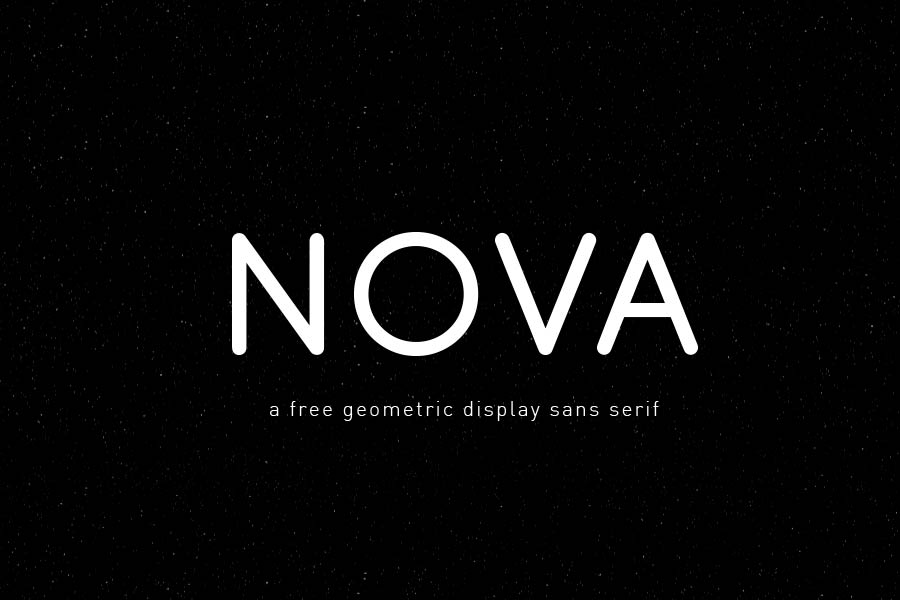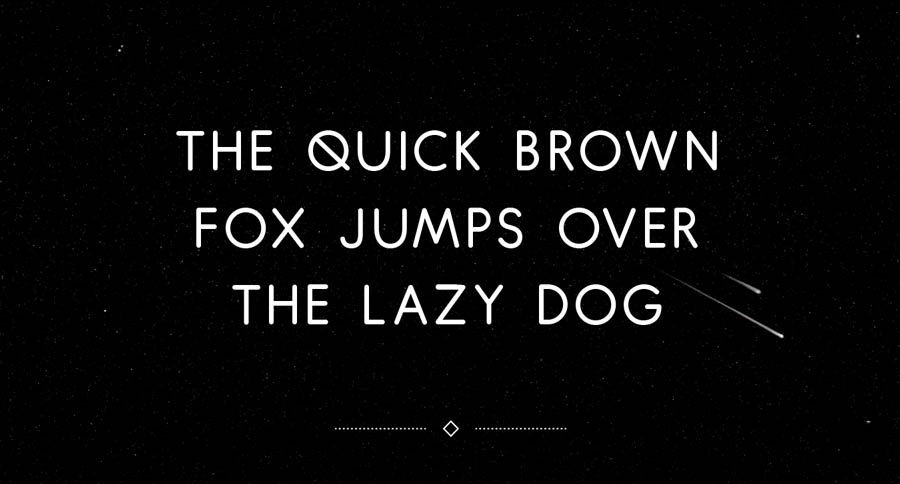
Nova is a tidy looking, geometrical rounded font with extensive glyphs support. The characters are generally wide and constructed with clean lines and strokes. I’m particularly fond of the design of the letter “Q”. It comes with the standard characters and also extra latin character support.